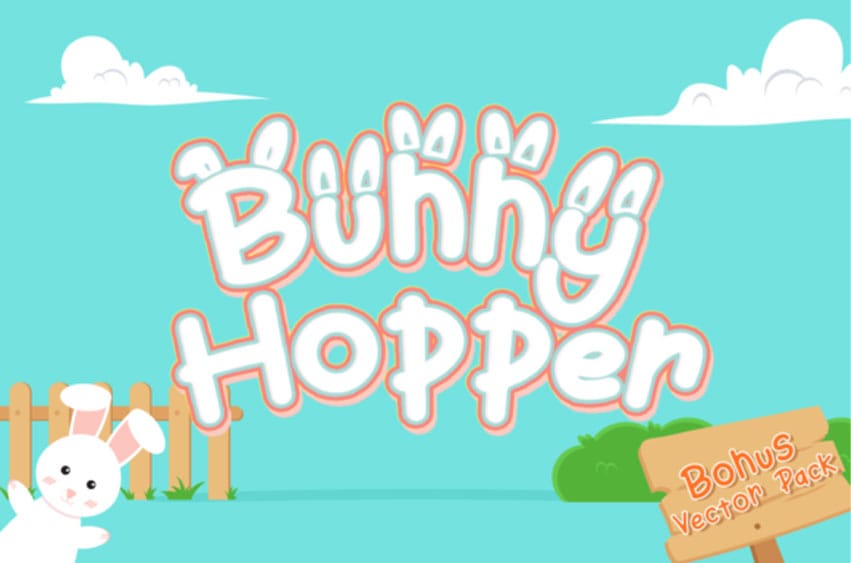
Bunny Hopper Font is very playful, fun and fresh font.
It comes in two lovely styles (Regular and bunny ear) and will spark joy for any new design ideas!